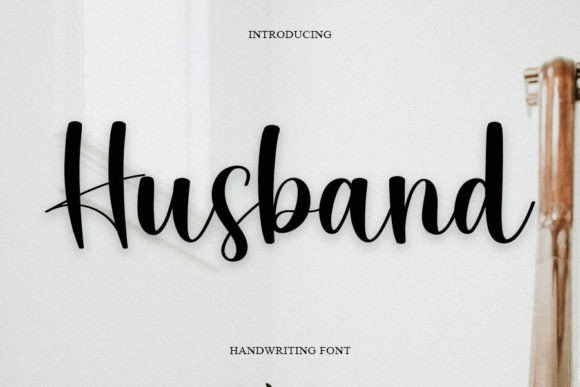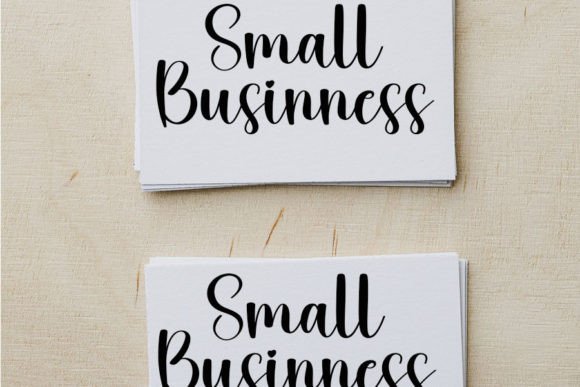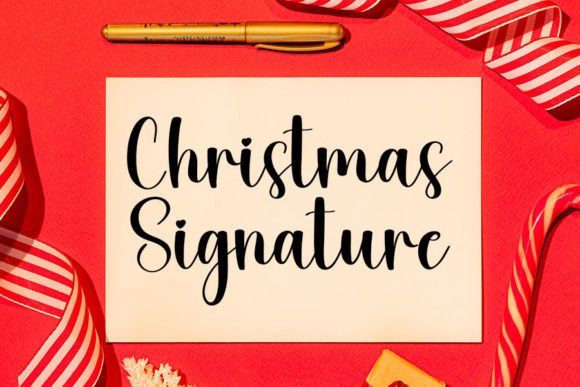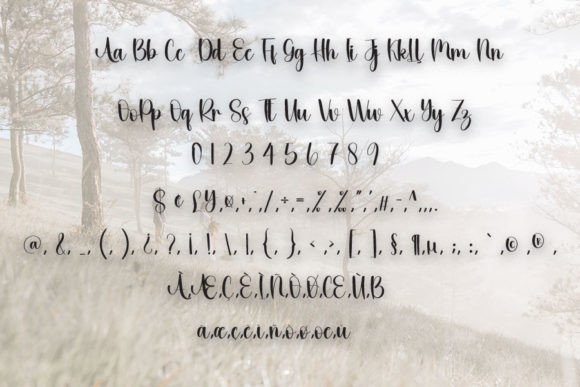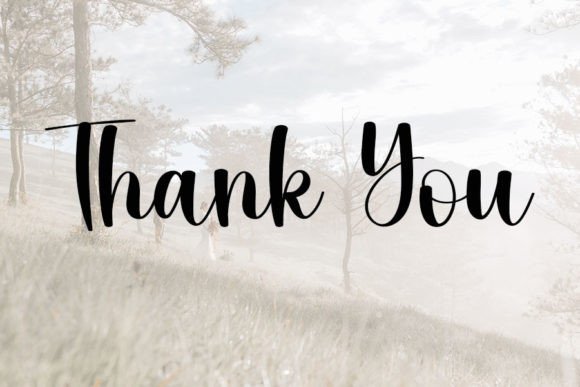
Discover Your New Favorite Font: Husband Font
You know that moment when you’re brainstorming ideas for a project and suddenly, the perfect font pops into your mind? It’s like the missing puzzle piece that makes everything fall into place. For designers, finding the right font can be the difference between a good design and an amazing one. And that’s exactly what Husband Font is – a simple yet friendly handwritten font that’s perfect for any occasion.
Whether you’re working on a digital design, creating a presentation, or making a handmade card, Husband Font has got you covered. Its versatility and charm make it an invaluable asset for designers, allowing them to add a personal touch to their projects. With its friendly and approachable feel, Husband Font is sure to become your go-to font for any creative endeavor.
Husband Font Key Features
- Unique Characteristics: Husband Font features a unique blend of modern and traditional design elements, with a distinctive x-height and letterform proportions that give it a distinctive look.
- Font Style: Husband Font is available in regular and bold weights, making it suitable for a wide range of applications, from body text to headlines.
- Optical Size: Husband Font is optimized for use at different sizes, with subtle adjustments to letterform proportions and spacing to ensure optimal readability at various magnifications.
Husband Font Review
As a designer, I was intrigued by the “Husband Font” and decided to give it a try. Overall, I’d say it’s an… interesting choice for a font. Here are my thoughts:
- ✨ It’s definitely a conversation starter! The unconventional design is sure to get people talking.
- ✨ The font’s playful nature might be perfect for a lighthearted or humorous project.
- ✨ It’s surprisingly legible, considering its unusual design.
- ⚠️ The font’s readability suffers in smaller sizes or at larger zoom levels.
- ⚠️ It might not be the best choice for formal or professional projects.
- ⚠️ The font’s uniqueness can be overwhelming and might not appeal to everyone.
The “Husband Font” is a bold, quirky choice that’s perfect for those who want to add some personality to their design. While it’s not without its limitations, it can be a great option for the right project. If you’re looking for something that will spark conversation and add some humor to your design, this might be the font for you. Just be aware of its potential drawbacks and use it thoughtfully.
Tips for Getting the Most Out of the Husband Font
Use the Husband Font for humorous or ironic effects, such as in memes or social media posts.
Use it to add a playful touch to your designs, such as in invitations or greeting cards.
Experiment with different font sizes and styles to create a unique look.
The Husband Font is commonly used for humorous or ironic effects, such as in memes or social media posts.
It is also used to add a playful touch to designs, such as in invitations or greeting cards.
The font can be used in a variety of contexts, including advertising, marketing, and entertainment.